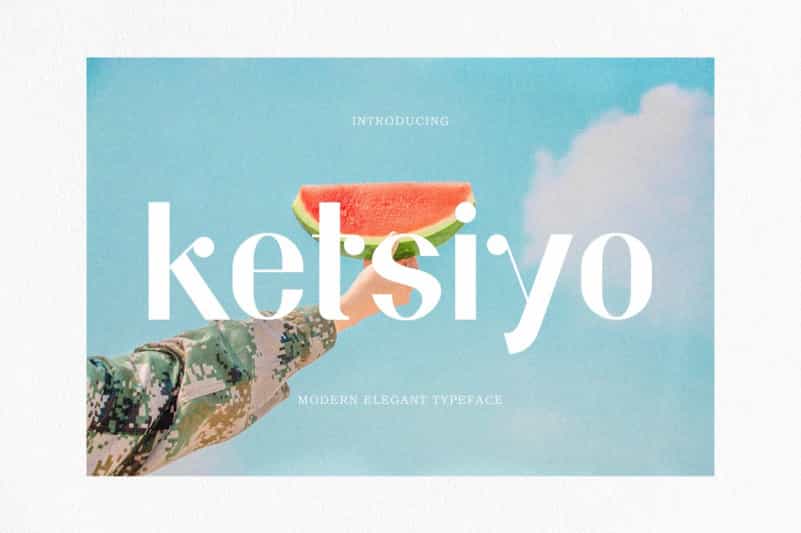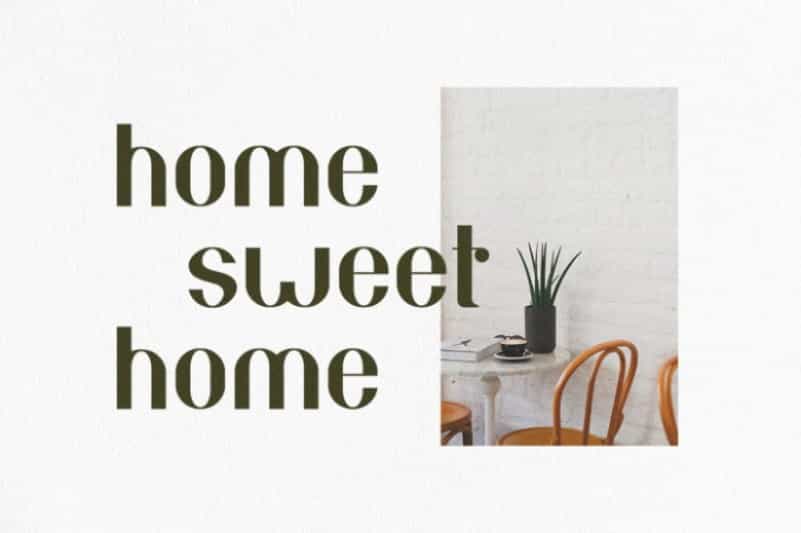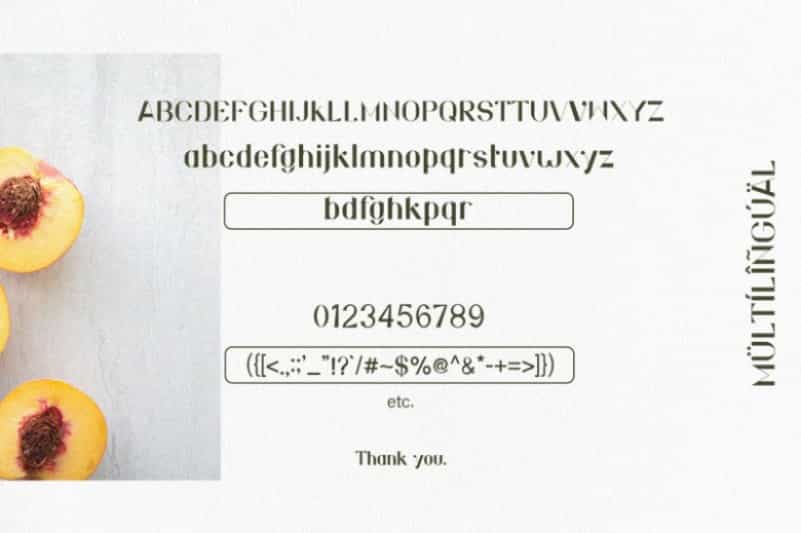
Discover Ketsiyo Font, part of the Sans Serif Display collection—a versatile and unique font perfect for adding a personal touch to your projects. Download it for free and enjoy crafting designs with style, from invitations to social media posts. This font is available exclusively for personal use, giving you the freedom to create without limits. Unlock your creativity with Ketsiyo Font today!
Ketsiyo Elegant Sans Serif Font is perfect for creating invitations for birthdays, weddings and any special event. A set of numbers and letters perfect for your designs; also ideal as logotypes, branding designs, digital lettering arts T-shirt/Apparel Posters Magazine Signs Advertising Designs as well as for other branding projects.